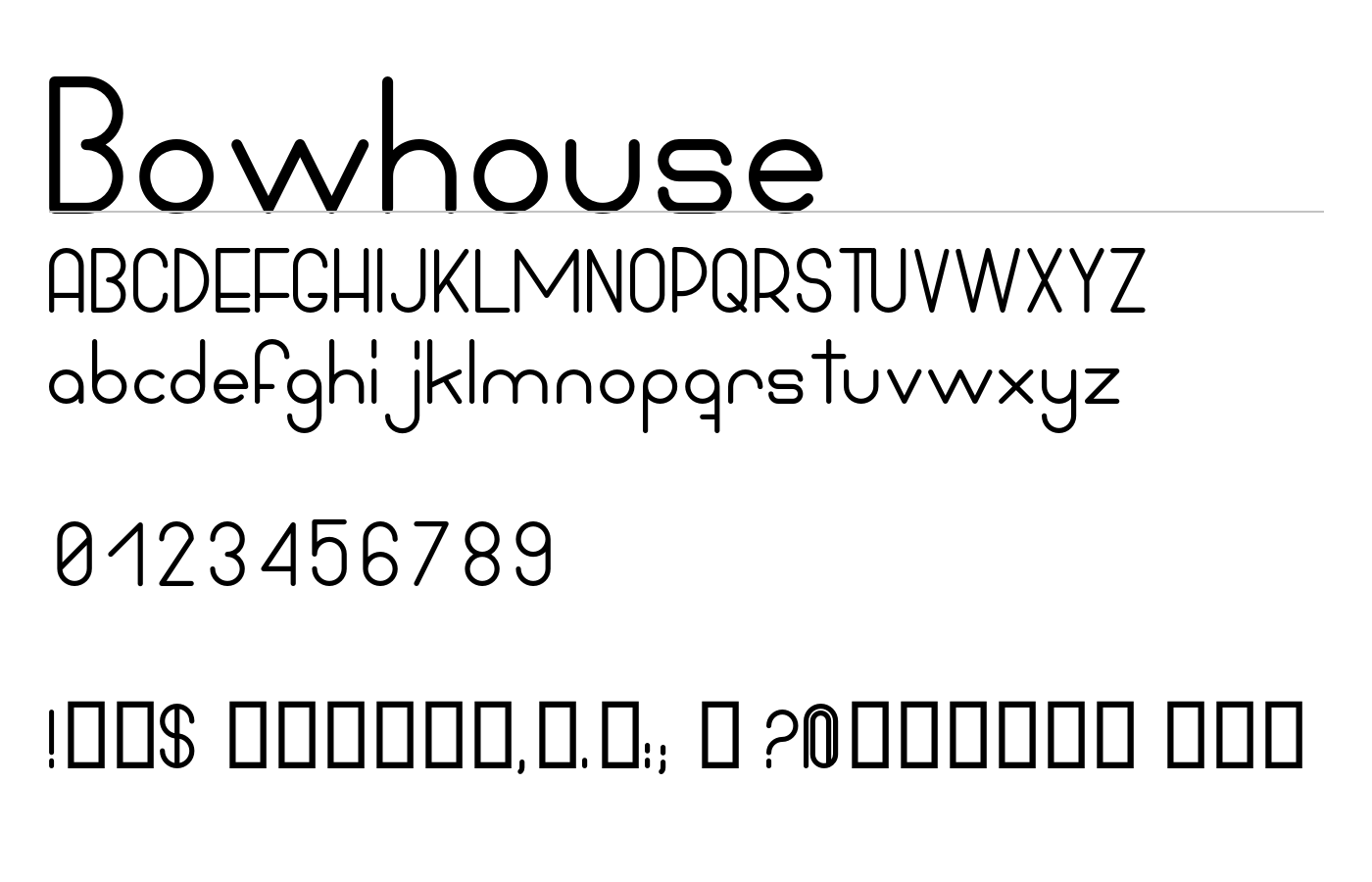
Bowhouse is a sleek, modern sans serif font with a distinctly narrow and geometric design. Its thin strokes and consistent line weight create a clean and minimal aesthetic, making it ideal for contemporary branding, editorial headlines, and stylish web graphics where clarity and sophistication are key. This font adds a touch of elegance and modernity without overwhelming the design, perfect for creative projects seeking a refined yet approachable look.
Bowhouse Font
About Bowhouse Font
| Font family | Bowhouse Font |
| Designer | Adrian Candela |